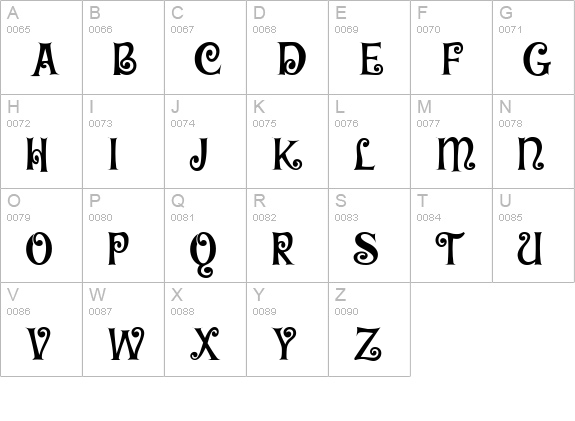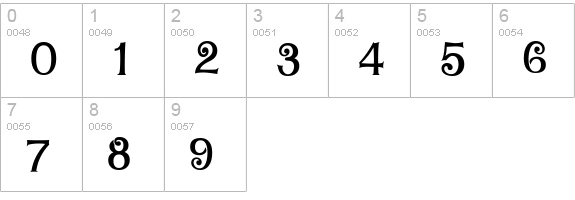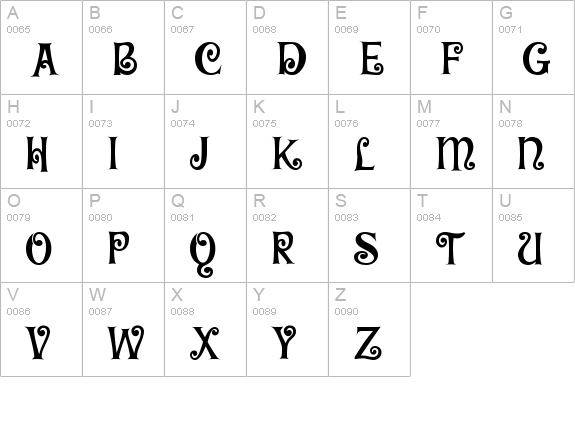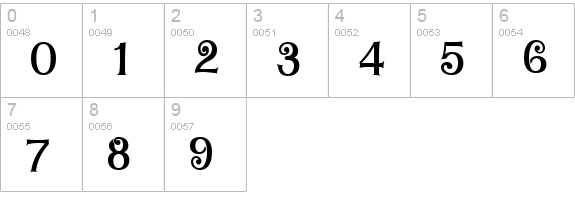
Blairesque Curly JF Font Details
Blairesque Curly JF font is a whimsical and elegant typeface that exudes charm and sophistication. With its intricate curls and unique design, this font is perfect for adding a touch of personality to your projects. Whether you are working on invitations, greeting cards, or branding materials, Blairesque Curly JF will make your text stand out. This font is freely available to download at FontsMarket.com, making it accessible to everyone looking to add a touch of flair to their designs. Embrace the beauty of Blairesque Curly JF and let your creativity shine with this delightful font choice.